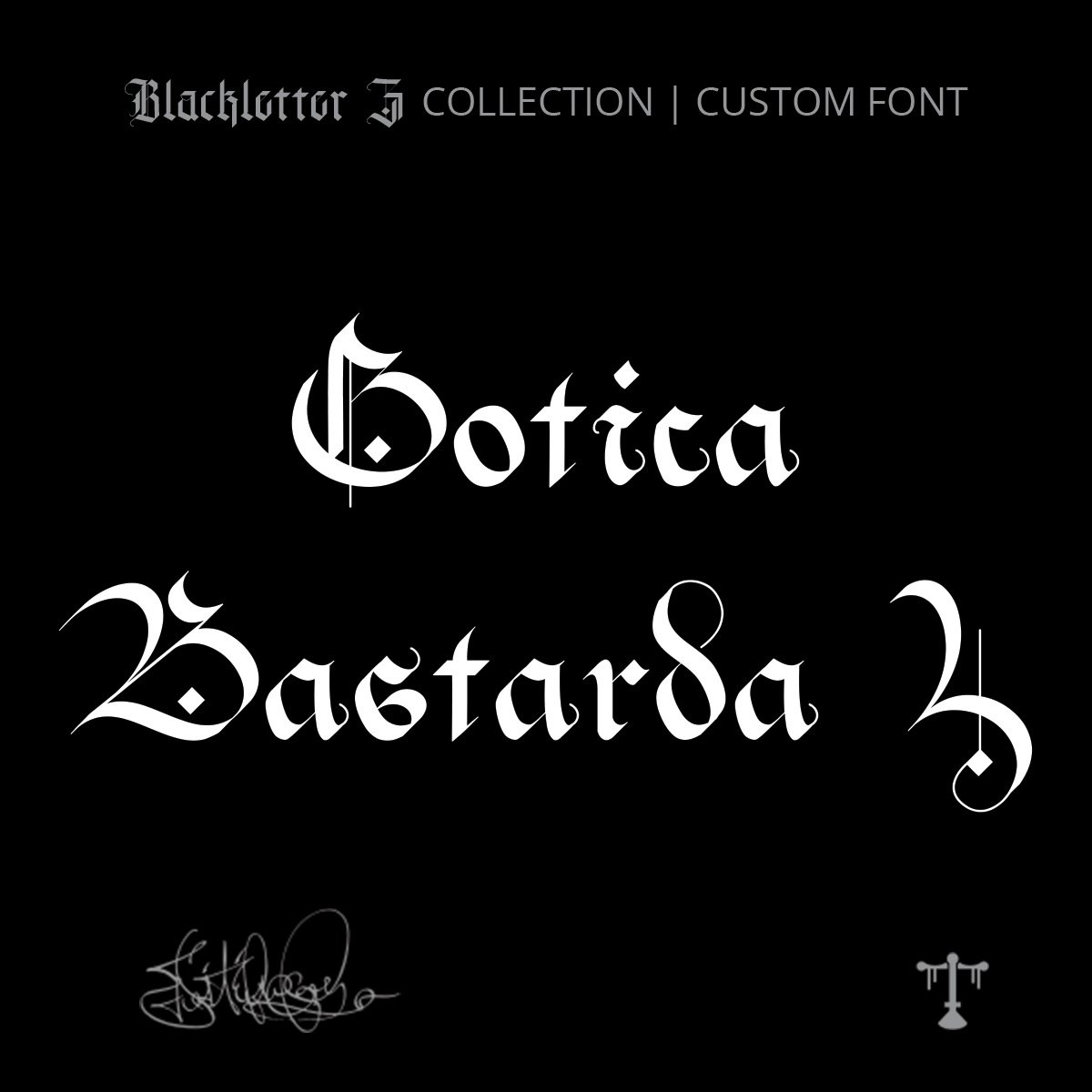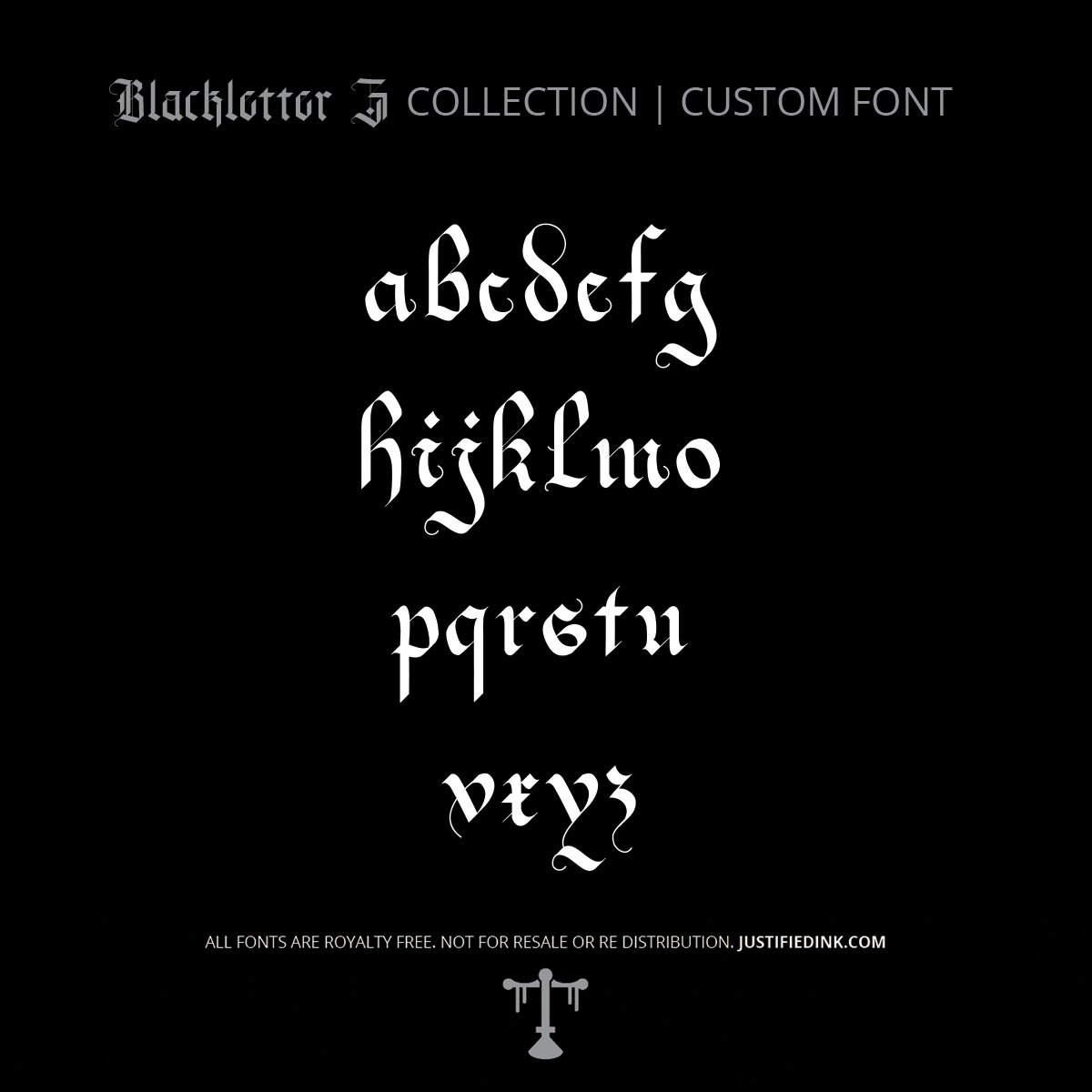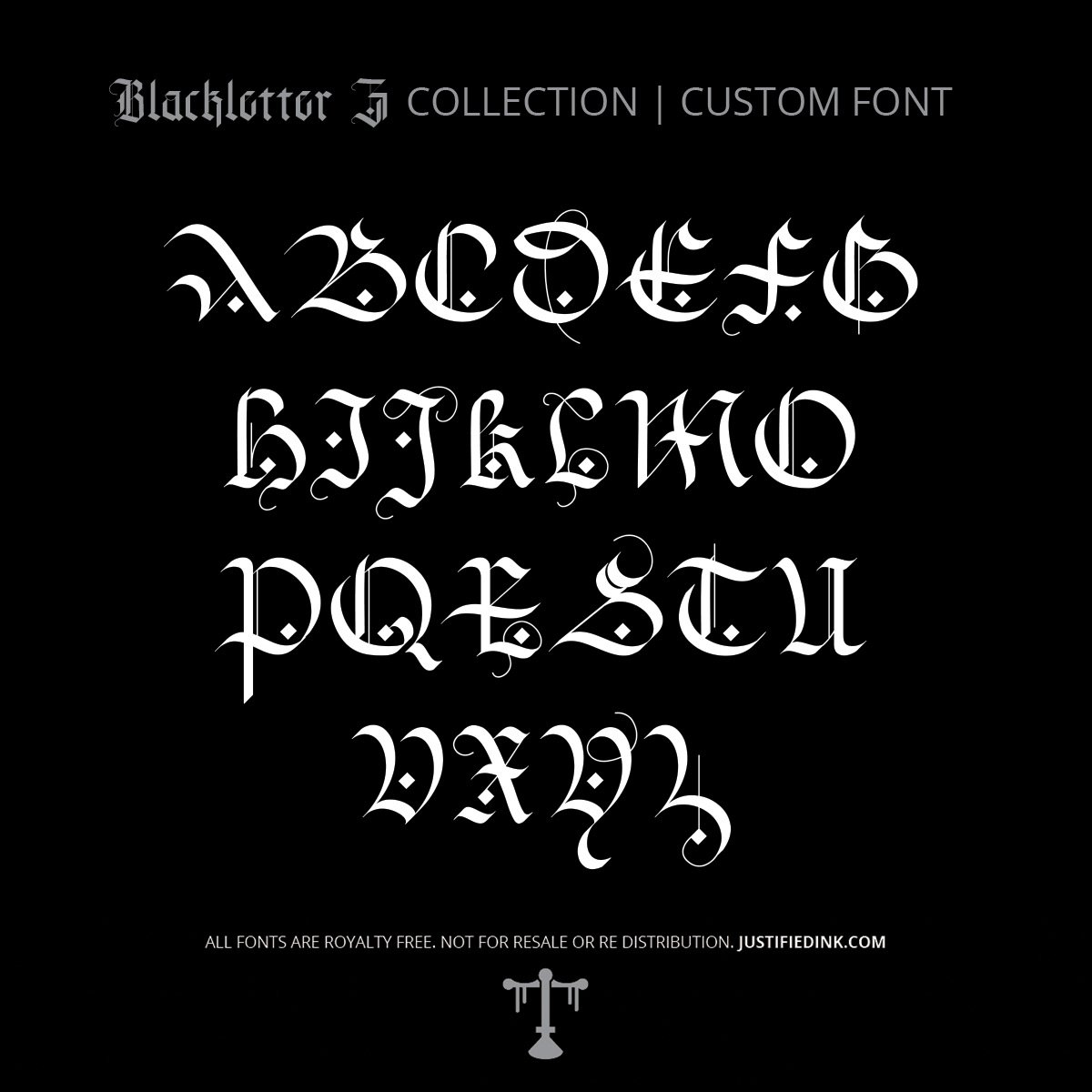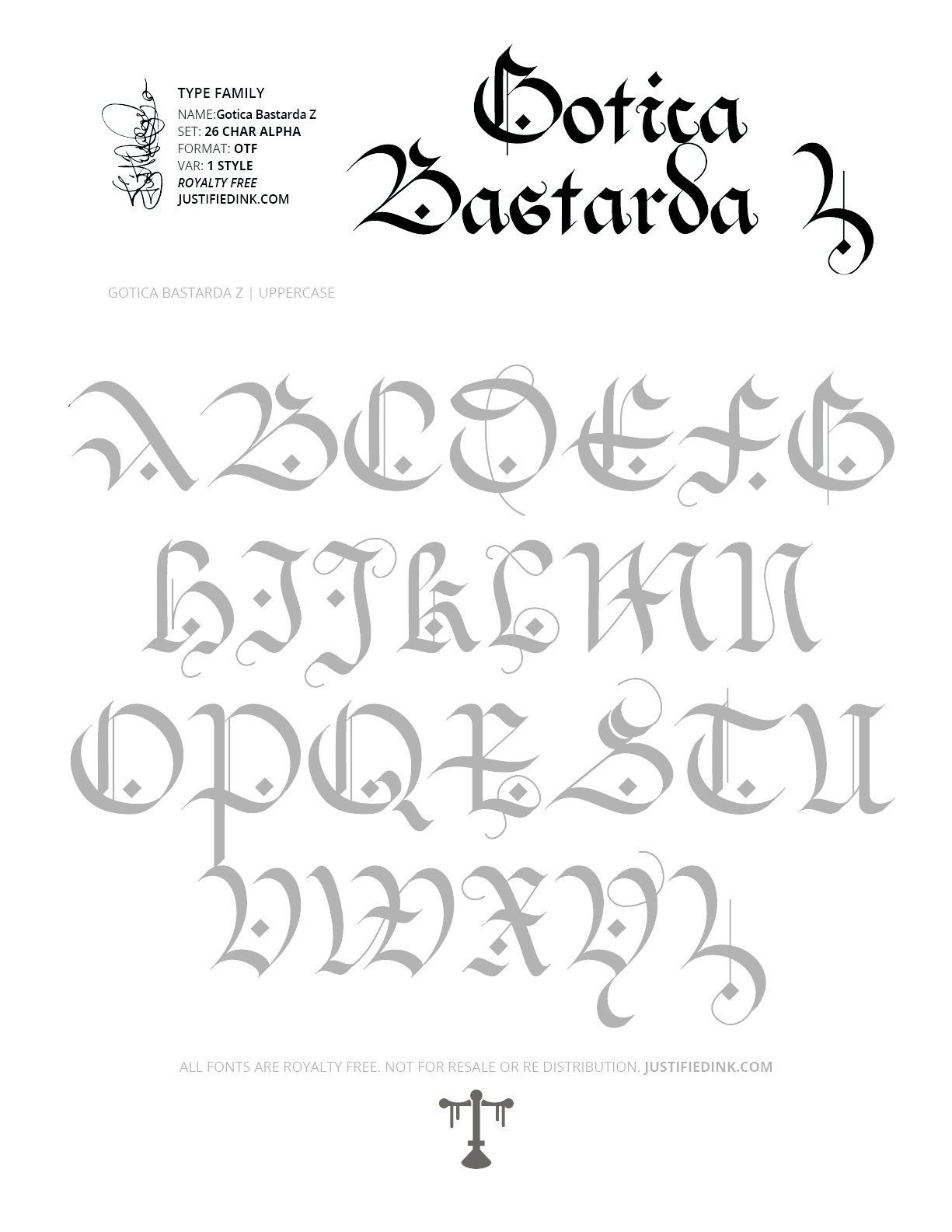
Gotica Bastarda Z (1 style) - Custom Font
The Rogue Script of Gothic Calligraphy
Gotica Bastarda Z captures the rebellious flow of medieval bastarda script—less rigid than textura, yet deeply gothic in feel. With its irregular curves and expressive movement, this font is perfect for gothic calligraphy projects, fantasy art, or tattoo fonts that thrive on character and unpredictability.
Blackletter Z is the newest addition to Justified Ink’s Atmospheric Blackletter Collection. This release builds on Blackletter II and III with over 40 new gothic fonts—including uppercase, lowercase, and full punctuation.
Inside you’ll find classic gothic lettering styles such as Fraktur, Gotica, Bastarda, Rotunda, and Textura, alongside modern graffiti and experimental gothic scripts. Designed for artists, designers, and typographers, Blackletter Z offers a versatile library of gothic letters, fonts, and scripts to elevate any project.